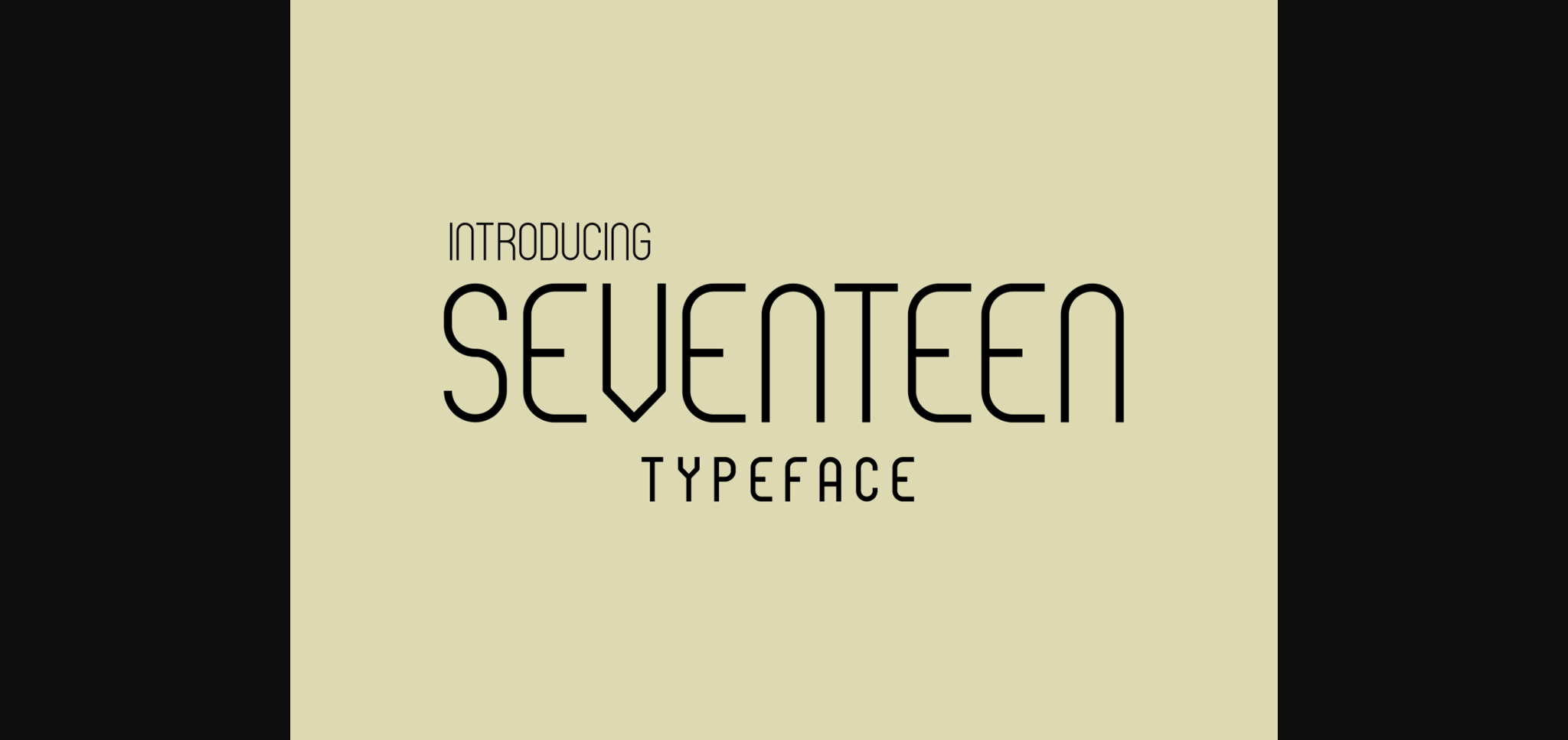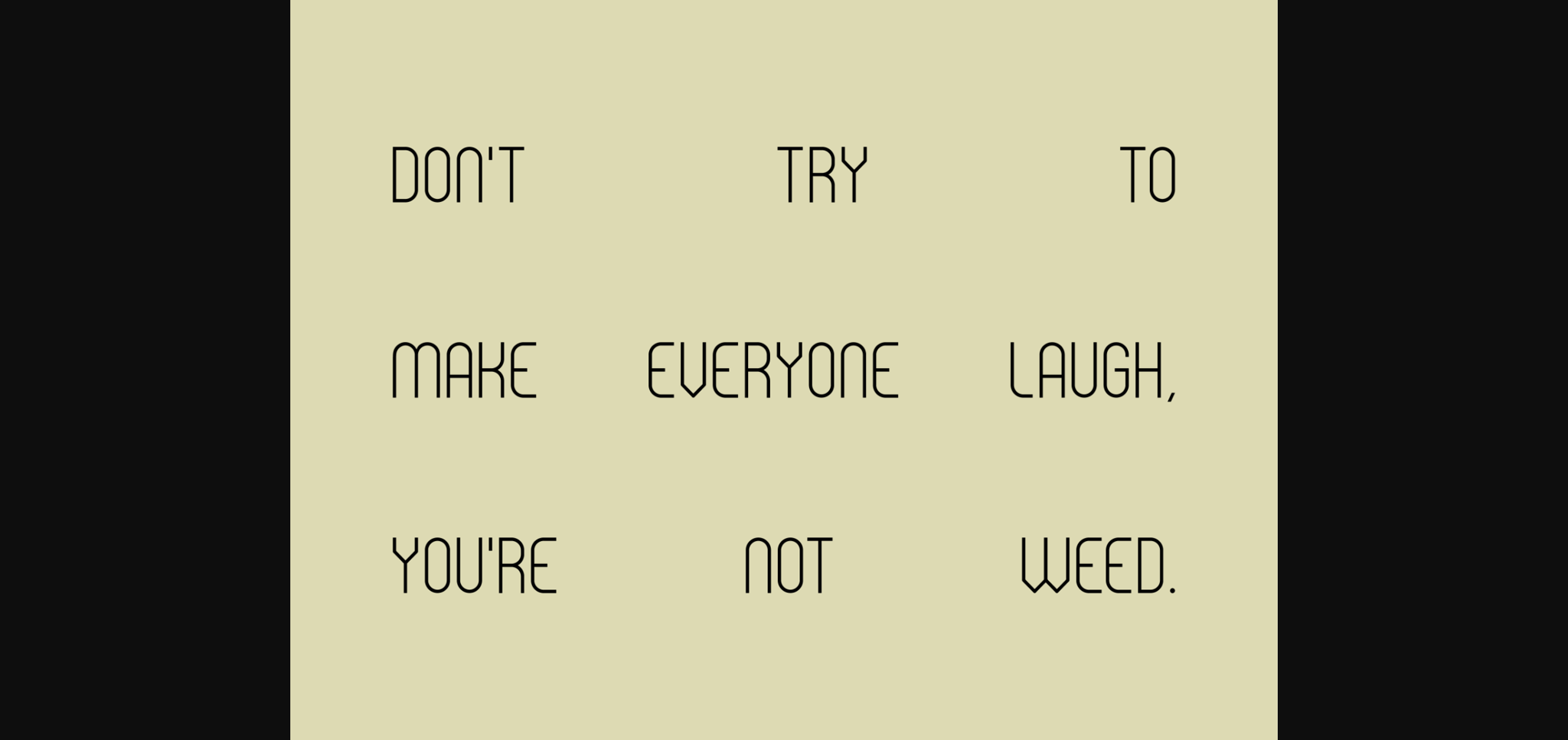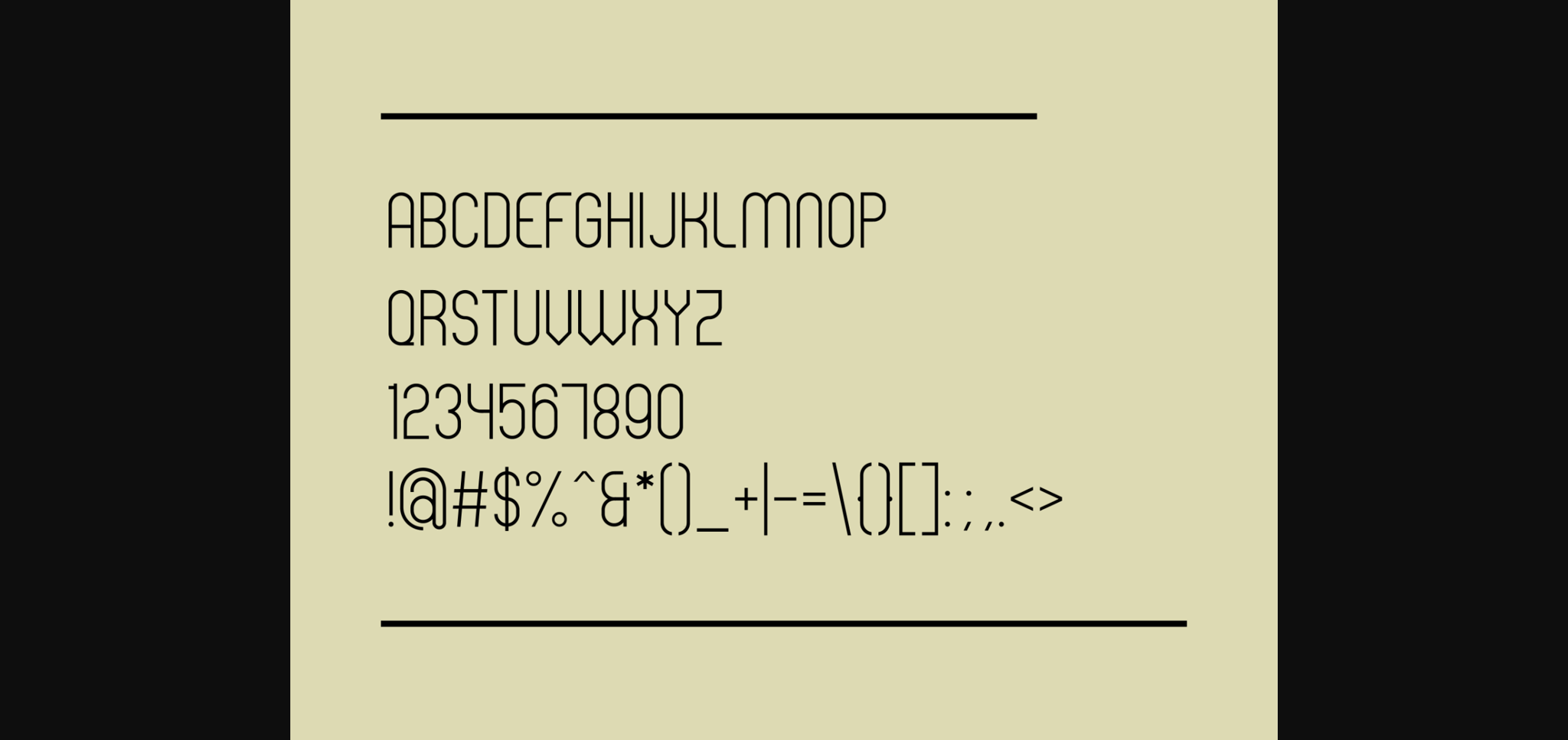
Seventeen Font
Seventeen is a neat, clean and modern sans serif font. It can easily fit into any project idea, so add it to your designs, and notice its impact on your creations!